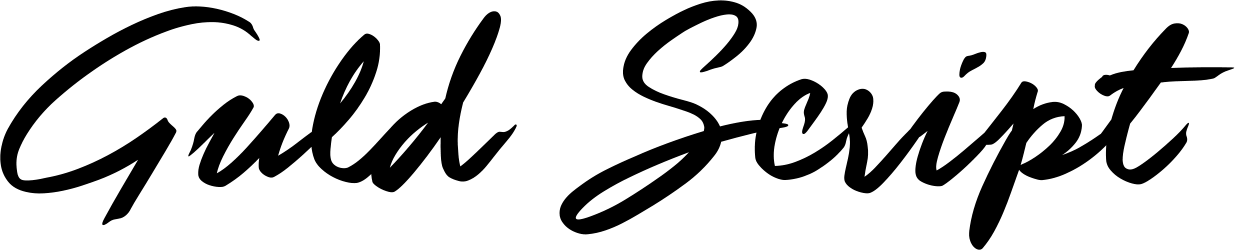
Guld Script Font
Turn your typography into a piece of art with this , Guld Script is a cursive font with a playful and modern look that can call attention to your typography.
Looking emerged through a talent dance of pencil on paper to be striking in many designs like flyers, invitation cards, posters, greeting cards, brands, apparel, and more. For all its beauty, you have to be careful about one thing, its unreadability, especially from a distance.